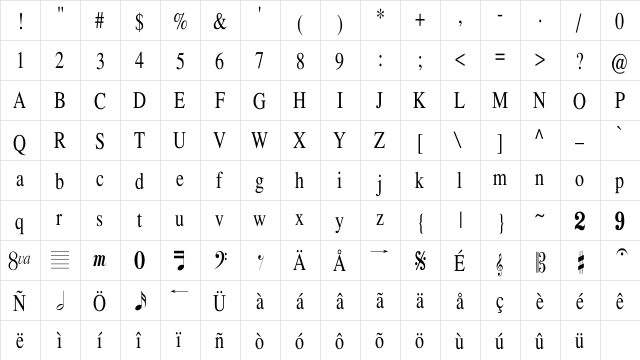
TempoFont Cn Regular
Design Context for TempoFont Cn Typeface
TempoFont Cn takes a measured approach to typography — its balanced proportions and neutral character make it a reliable workhorse for both digital and print work.